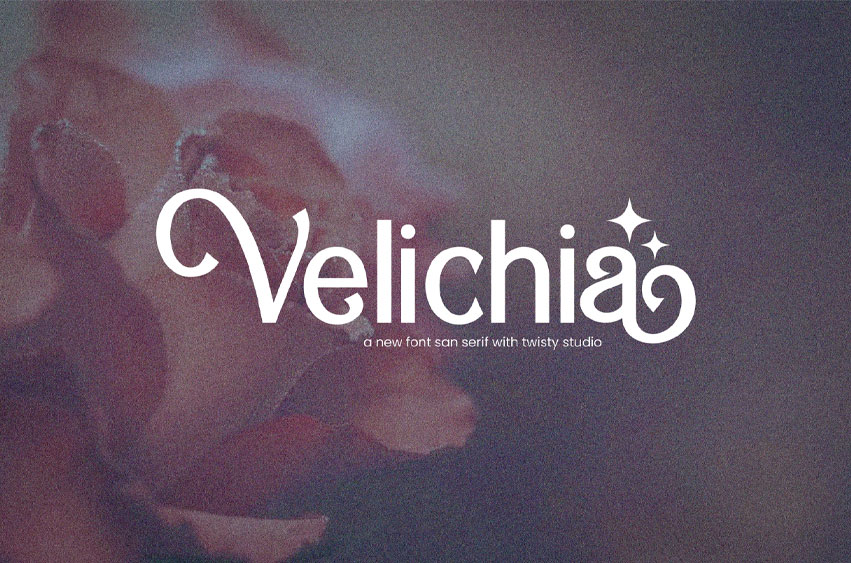
Velichia Font
Velichia Font is a modern sans serif typeface designed to deliver a clean, sleek, and contemporary visual style. With its balanced proportions, smooth curves, and minimalist structure, Velichia creates a stylish appearance that feels both elegant and highly versatile. Its modern character allows it to adapt seamlessly across various creative projects, making it perfect for branding, editorial design, and digital content. Whether used for logos, headlines, or layouts, Velichia brings clarity and sophistication to every composition.
Features: Uppercase & Lowercase Alternates & Ligatures Numerals & Punctuation Multilingual Support
Who Should Use Velichia? Velichia is ideal for designers, creatives, and brands who want a modern sans serif font with a stylish and refined personality. It’s especially suited for projects that require simplicity, readability, and a polished contemporary aesthetic.
Suitable For: Modern branding and identity design Corporate and business projects Editorial and magazine layouts Website and UI design Social media visuals Packaging and product design Logo and typography systems Clean and modern typography